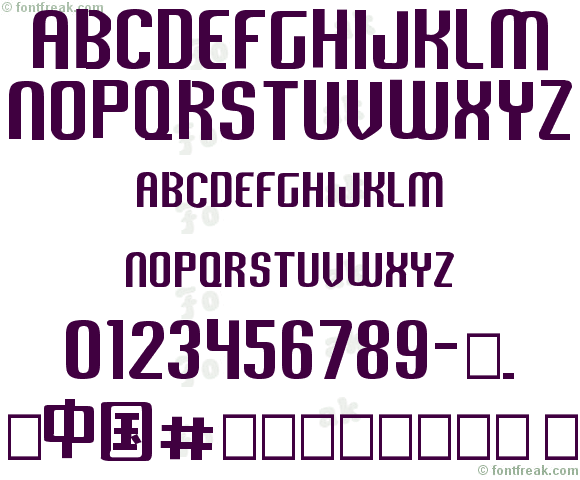
Vixene
About Vixene
Vixene, designed by Rafi, is a striking sans-serif font that embodies a modern aesthetic while maintaining readability. This freeware typeface features a unique blend of geometric shapes and smooth curves, creating a harmonious balance between contemporary design and classic legibility. The stroke weight is consistent, contributing to its clean and polished appearance, while the slight contrast in certain letters adds character without sacrificing clarity. The spacing is well-considered, ensuring that each letter stands out, making it suitable for both headers and body text.
The Vixene font shines in various applications, making it a versatile choice for a range of projects. It is ideal for wedding invitations, where its elegant simplicity can elevate the overall design. Moreover, it works beautifully on restaurant menus, providing a modern touch that enhances the dining experience. Graphic designers can utilize Vixene for branding materials, as its unique style can create memorable logos and promotional content. Additionally, content creators will find it perfect for social media graphics, where eye-catching visuals are essential for engagement.
Targeted primarily at graphic designers, small business owners, and content creators, Vixene offers a fresh perspective in the world of typography. Its ability to adapt to various styles and formats makes it an essential addition to any designer's toolkit.
What sets the Vixene font apart is its elegant yet approachable nature, making it suitable for both formal and casual contexts. Whether you're crafting a sophisticated wedding invitation or a trendy social media post, the Vixene font free download provides the perfect solution to enhance your creative endeavors. With its unique design and versatility, Vixene is sure to make a lasting impression.